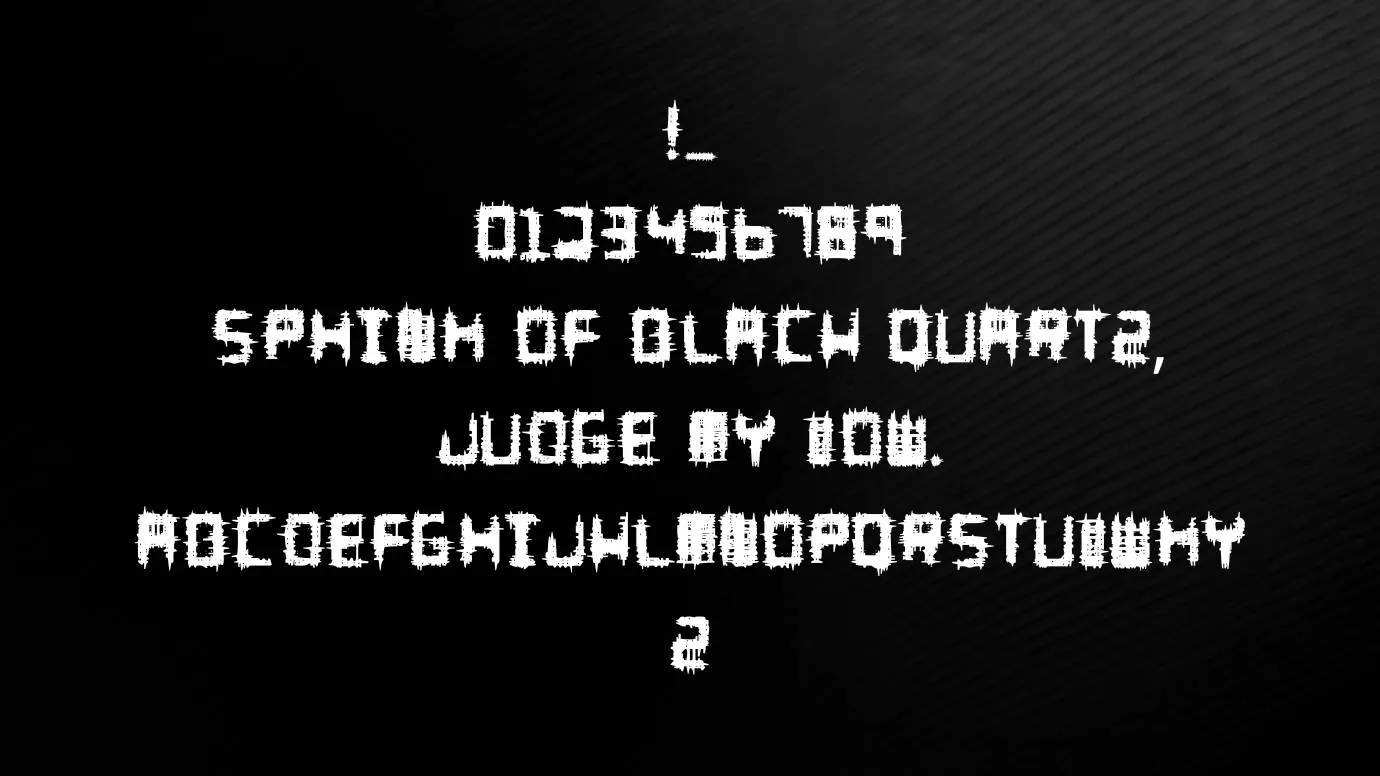
In this post, we are going to introduce you to one of the premium typeface Melee Fonts that belongs to the fancy font family. It has a distorted texture and bold appearance that can be used in several display projects. It has an extra bold texture that gives a scary and creepy look to your projects. Many designers used this typeface in different brand projects and got huge fame all over the world.
This traditional typeface was designed by one of the creative designers Swat Kat for one of the most famous font foundries Bionic Type. He has made many other attractive designs with ultimate characters and eye-catching features. It comes in uppercase letters, lowercase letters, punctuations, numbers, symbols, icons, currency, digits, and special characters.
Moreover, Melee Font can be paired with other fonts and make wonderful combinations. It comes with distinctive 73 characters and 53 eye-catching glyphs. It has one regular style and many other interesting features. It is available in OTF and TTF formats.
View of Melee Font
Here is a picture of this distorted typeface Melee Font which is a member of the fancy font family. It has a bold texture and strong strokes with ultimate features. You can take a look at this typeface and use it in your project.
Because of its sleek design and top-notch quality texture, it has been used in different kinds of projects. It has strong features and attractive designs that can be used in different kinds of brands and company logo designs. It can be useful for different types of social media platforms and you can create attractive thumbnails for your YouTube channels.
It has been used in Halloween projects and decoration purposes. You can also make logos, posters, fashion magazines, books, layouts, templates, graphics designs, video games, invitation cards, business cards, headings, homeware designs, quotes, wallpapers, TV shows, and many other fantastic projects.
What is the type of Melee Font?
It is one of the distorted typefaces that comes in a fancy font family. It has a unique design and attractive texture that has been used in many amazing projects like fashion magazines and printing purposes.
Who designed the Melee Font?
This traditional typeface was designed by one of the creative designers Swat Kat for one of the most famous font foundries Bionic Type.